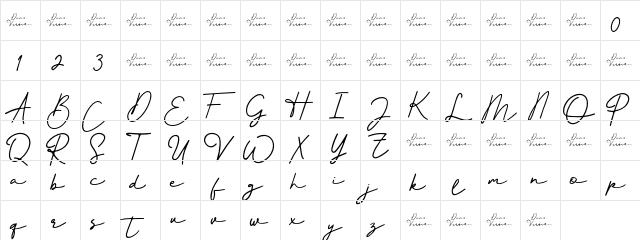
Better Signature Regular
Design Context for Better Signature Typeface
Better Signature is a composed and adaptable typeface that performs quietly and consistently across a wide range of design contexts.